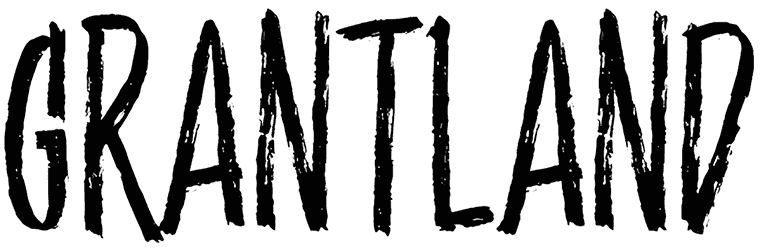
Grantland Font
For unique ideas that you want to make a close relationship with the viewers, the use of brush lettering can convey an urban vibe better. This handwritten font has a natural and captivating mood that is a cool choice for various titles.
There isn’t support for lowercase letters, but this island font possesses two series of capitals. Grantland font will be a nice item for posters, albums, packaging, and many others the same.